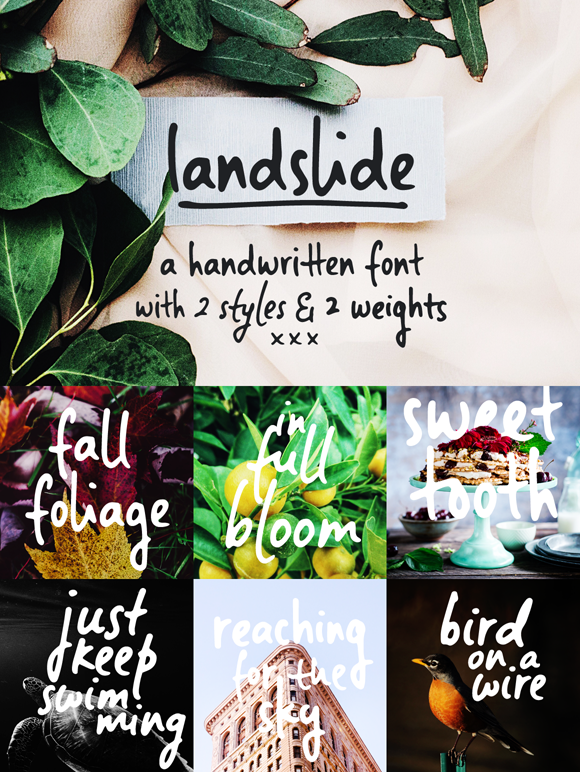
Landslide is a cute handwritten font, with: - A-Z, a-z, 0-9, accents, punctuation and symbols - Ligatures - 2 styles and 2 weights Try it out for free (for private use) with this sample version! For the full public/commercial version, please visit one of these links: https://www.anasfonts.com/ https://creativemarket.com/justlikethistrain?u=justlikethistrain http://www.revolge.com/shop/anas-fonts/ https://www.fontspring.com/foundry/anas-fonts https://thehungryjpeg.com/anas-fonts/ |